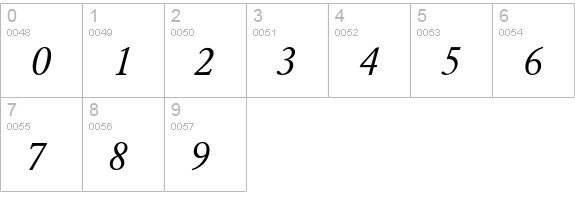
Garamond BE Italic is a distinctive, italic variant in the Garamond typeface family \xE2\x80\x94 well suited to design and typography projects.
Garamond BE Italic is a beautifully crafted font that effortlessly captures elegance and sophistication. With its graceful curves and slanted letterforms, this italic variant of the Garamond font family adds a touch of refinement to any project. Designed with meticulous attention to detail, Garamond BE Italic is a true testament to the timeless beauty of the Garamond typeface. Its delicate strokes and subtle variations in thickness create a sense of fluidity and grace, making it perfect for conveying a sense of elegance and class. Whether used for headings, subheadings, or body text, Garamond BE Italic exudes a sense of professionalism and style. Its versatility allows it to be paired seamlessly with other fonts, enhancing the overall visual appeal of any design. One of the most appealing aspects of Garamond BE Italic is that it is available for free. FontsMarket.com, a leading platform for font enthusiasts, offers this font as a free download, allowing designers, typographers, and anyone in need of a sophisticated font to easily access this beautiful typeface. With Garamond BE Italic, you can add a touch of timeless elegance to your projects without breaking the bank. So why wait? Visit FontsMarket.com today and freely download this stunning font to elevate your designs and leave a lasting impression.